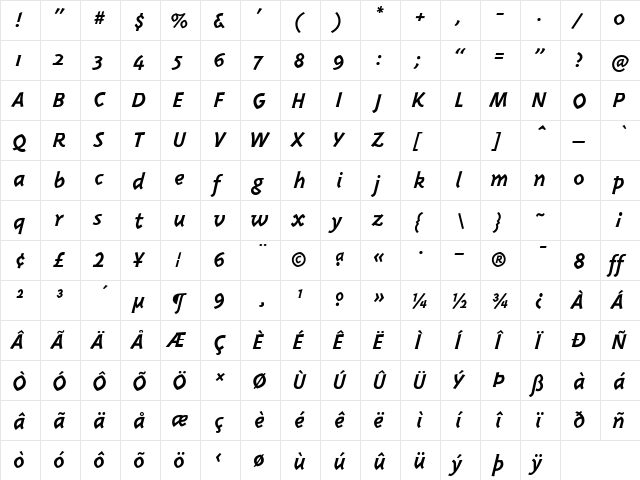
Triplex Bold Italic Regular
Design Context for Triplex Bold Italic Typeface
Triplex Bold Italic is a composed and adaptable typeface that performs quietly and consistently across a wide range of design contexts. Its italic angle brings a sense of urgency and motion to the letterforms. Its bold stroke weight gives it real presence on the page.
Pro Tip: Use Triplex Bold Italic for emphasis, pull quotes, and subheadings where its slanted energy can add rhythm to the layout.